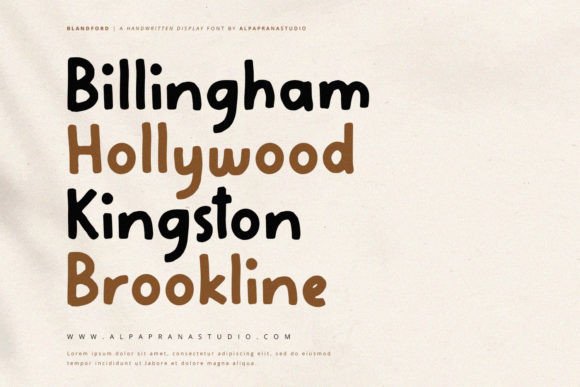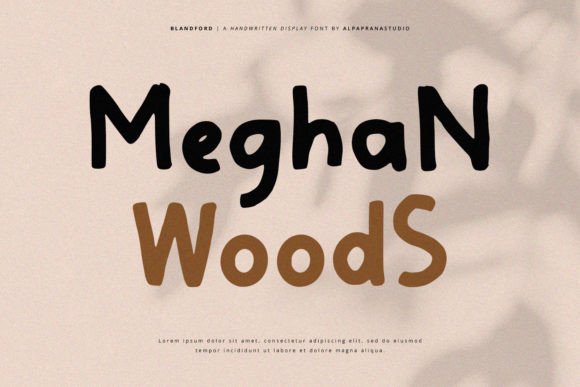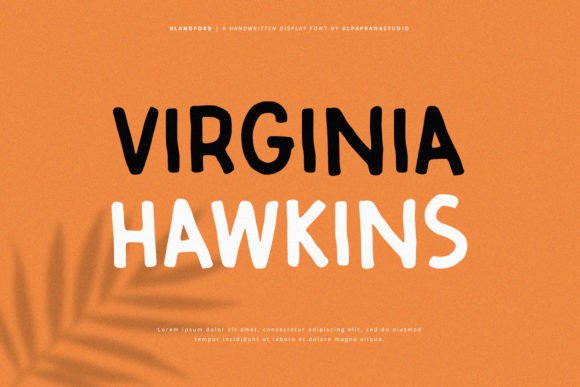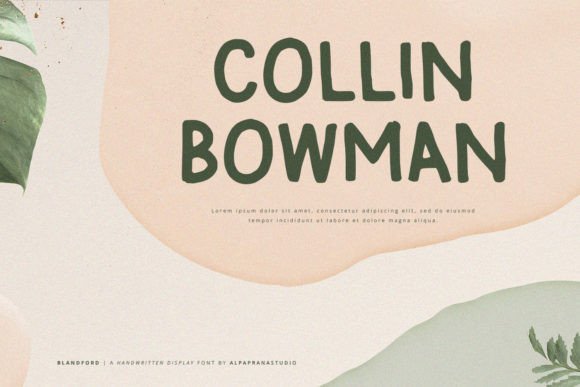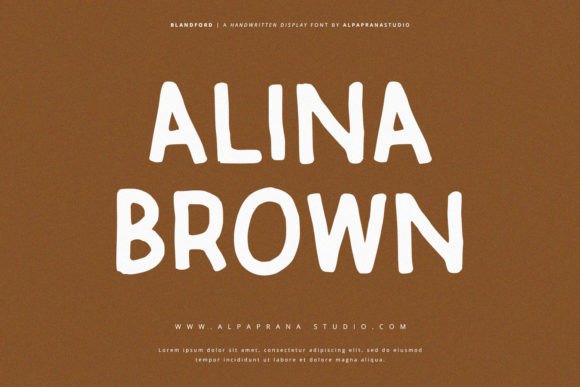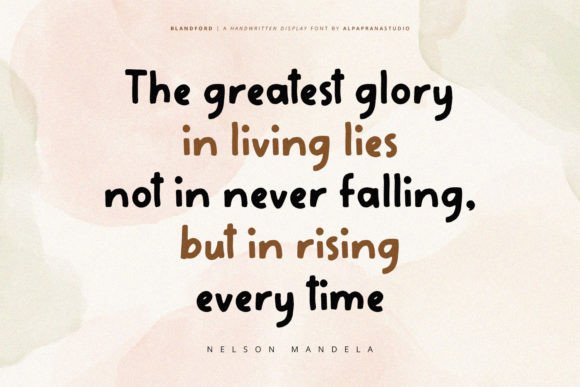
The Blandford Font: A Modern Handwritten Display Font for Creative Projects
I’ll never forget the time I was working on a branding project for a new coffee shop. I had spent hours perfecting the logo design, but something was missing. The font I had chosen just didn’t feel right – it was too generic, too boring. I needed something with personality, something that would make the brand stand out. That’s when I stumbled upon the Blandford font. ✨
As soon as I saw it, I knew I had found what I was looking for. Blandford is a handwritten display font with a natural and modern feel that’s perfect for branding, logo design, lettering, logotype, and more. In this article, I’ll share my honest review of the font, provide a practical guide on how to use it, and explore similar fonts and alternatives.
- ✨ Unique and modern handwritten feel that’s perfect for creative projects
- ✅ Extensive OpenType features, including glyphs and stylistic alternates
- ✅ Works well for both digital and print projects
While I love the Blandford font, there are a few quirks to be aware of. ⚠️ Some users have reported issues with kerning, particularly with certain letter combinations. Additionally, the font can be a bit overused in certain design contexts, so be sure to use it judiciously.
The Blandford font was designed with inspiration from modern handwritten fonts and a desire to create something unique and versatile. The designer, who wishes to remain anonymous, drew inspiration from everyday handwritten notes and scribbles to create a font that’s both natural and modern.
Q: What is the Blandford font best used for?
A: The Blandford font is best used for creative projects, such as branding, logo design, lettering, logotype, clothing, posters, magazines, packaging, and more.
Q: Is the Blandford font suitable for body text?
A: While the Blandford font is highly legible, it’s best used for headings and titles rather than body text. For body text, a more traditional font may be more suitable.
Q: Is the Blandford font available in different weights or styles?
A: Yes, the Blandford font comes in multiple weights and styles, allowing you to experiment with different looks and feels in your design.